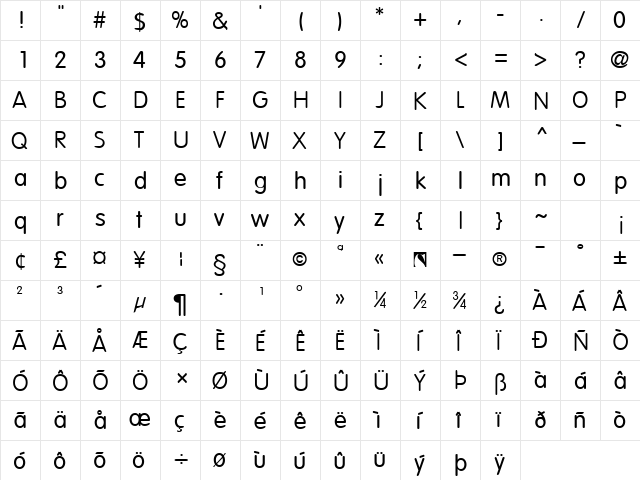
Elementary normal
Design Context for Elementary Typeface
Elementary is a composed and adaptable typeface that performs quietly and consistently across a wide range of design contexts.